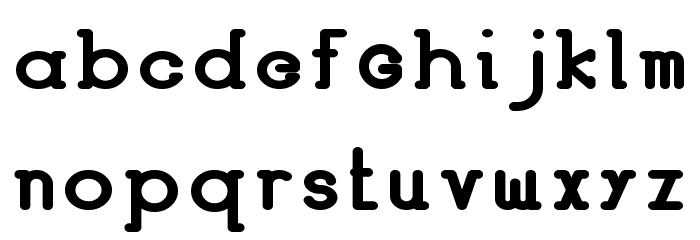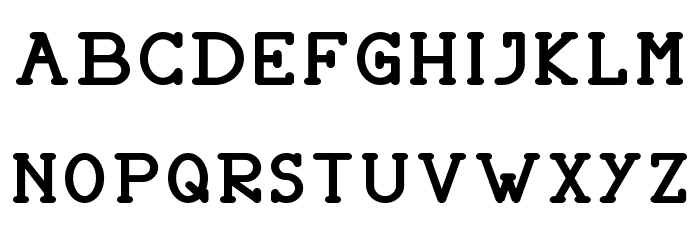
HASTON DEMO Bold Font
This font features a bold, playful style with rounded edges and a slightly condensed form. The characters exhibit a unique blend of modern and retro elements, making it stand out with its distinctive appearance. The uppercase letters are uniform in height, while the lowercase letters maintain a consistent baseline, providing a balanced look. The numbers and special characters are crafted to match the overall aesthetic, ensuring a cohesive design. This font's boldness and character make it suitable for eye-catching designs.
A bold, playful font with rounded edges and a modern-retro vibe.
- Proposed Projects: Ideal for branding, posters, headlines, and any design requiring a bold, playful touch.